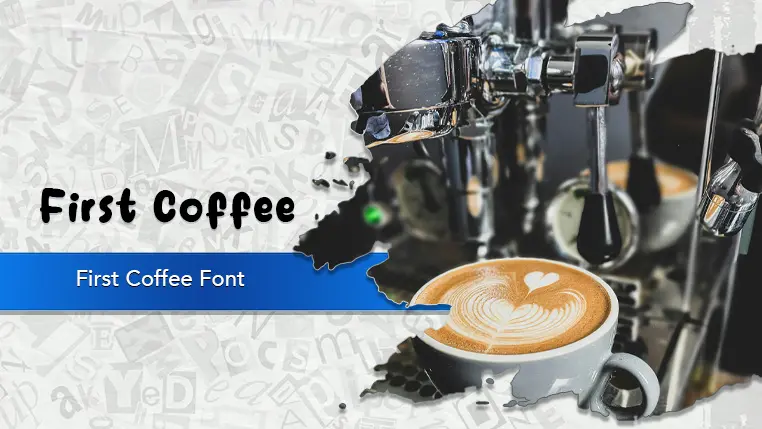
The First Coffee font family may be ideal for you if you enjoy working on an artistic design project. The lively, expressive look of this typeface, which was created by Khurasan, makes it ideal for Coffee Shops & Cafes (Branding & Logos perfectly fits the vibe of a welcoming coffee shop, artisanal bakery, or cozy cafe), Menu Boards, Food & Beverage Writing, Lifestyle & Personal Branding, Invitations & Stationery, Home Decor & Craft Projects and other light-hearted visual projects.
Regular are the one primary font styles of the First Coffee font family. You may build dynamic, visually appealing text layouts with the distinct flair that each style offers. With crisp, readable lines and a relaxed tone.